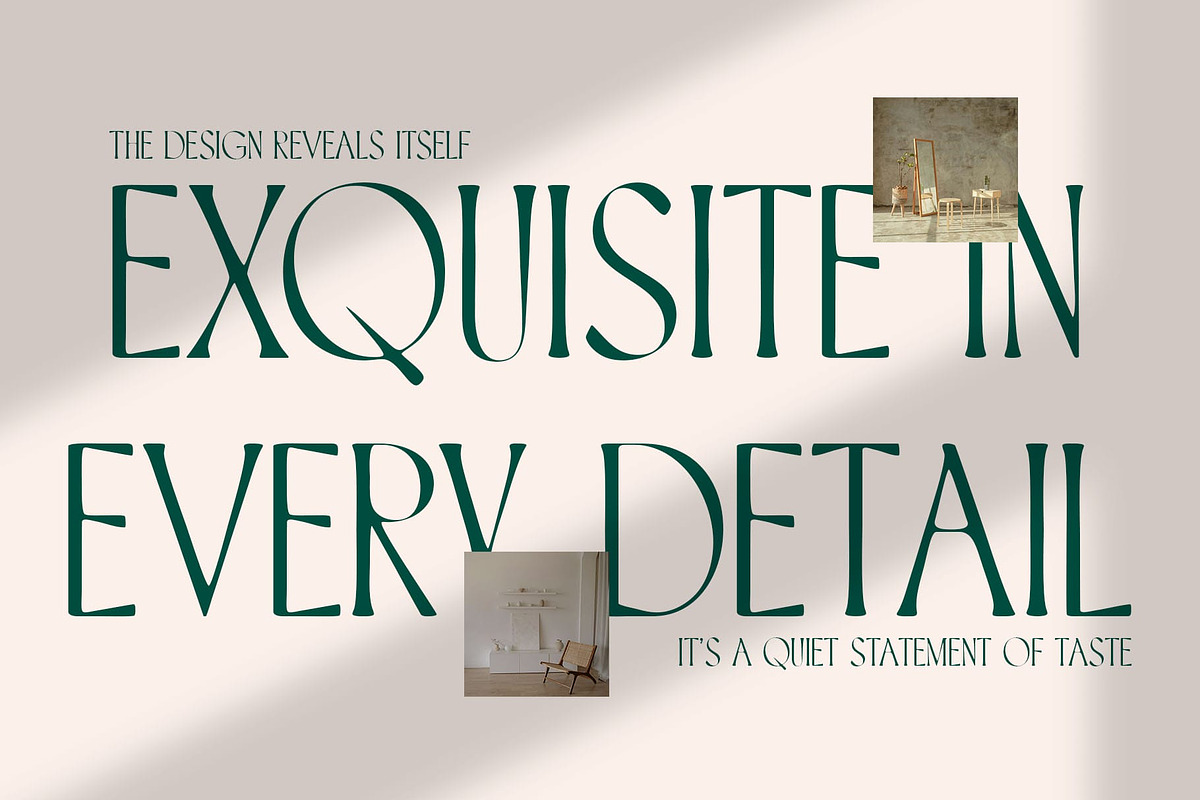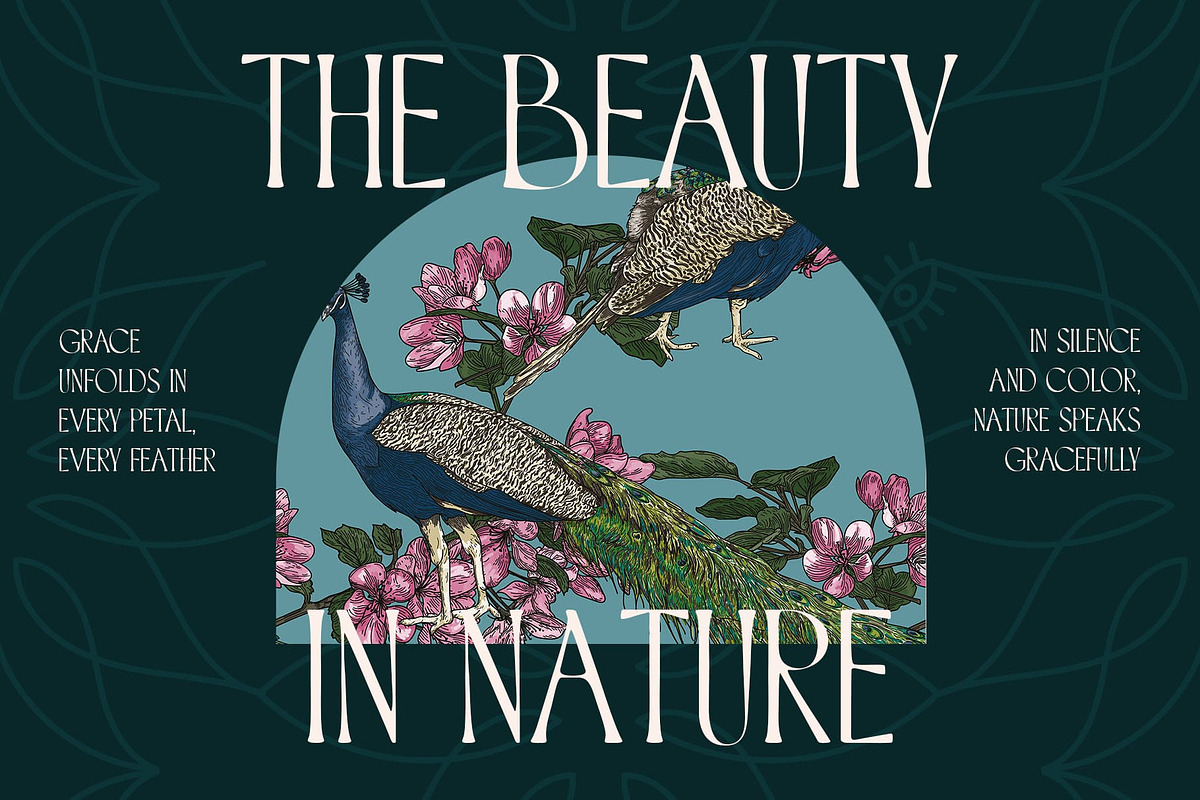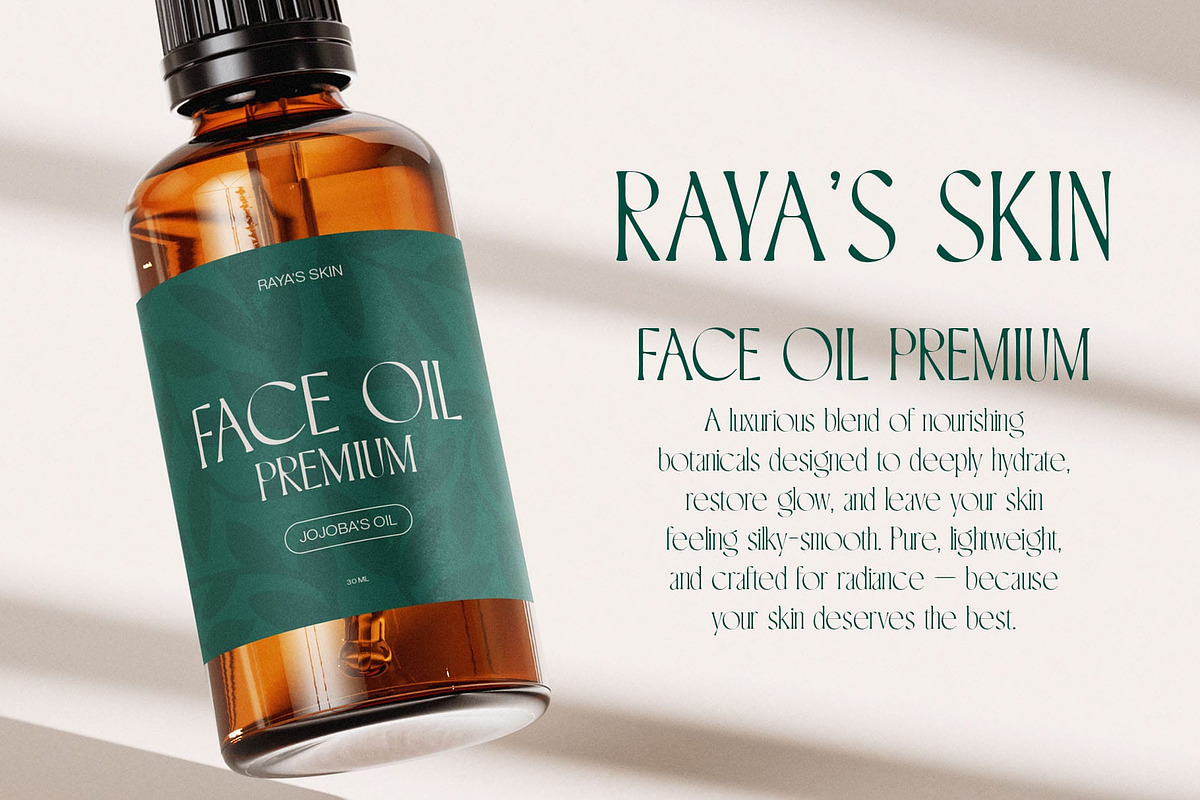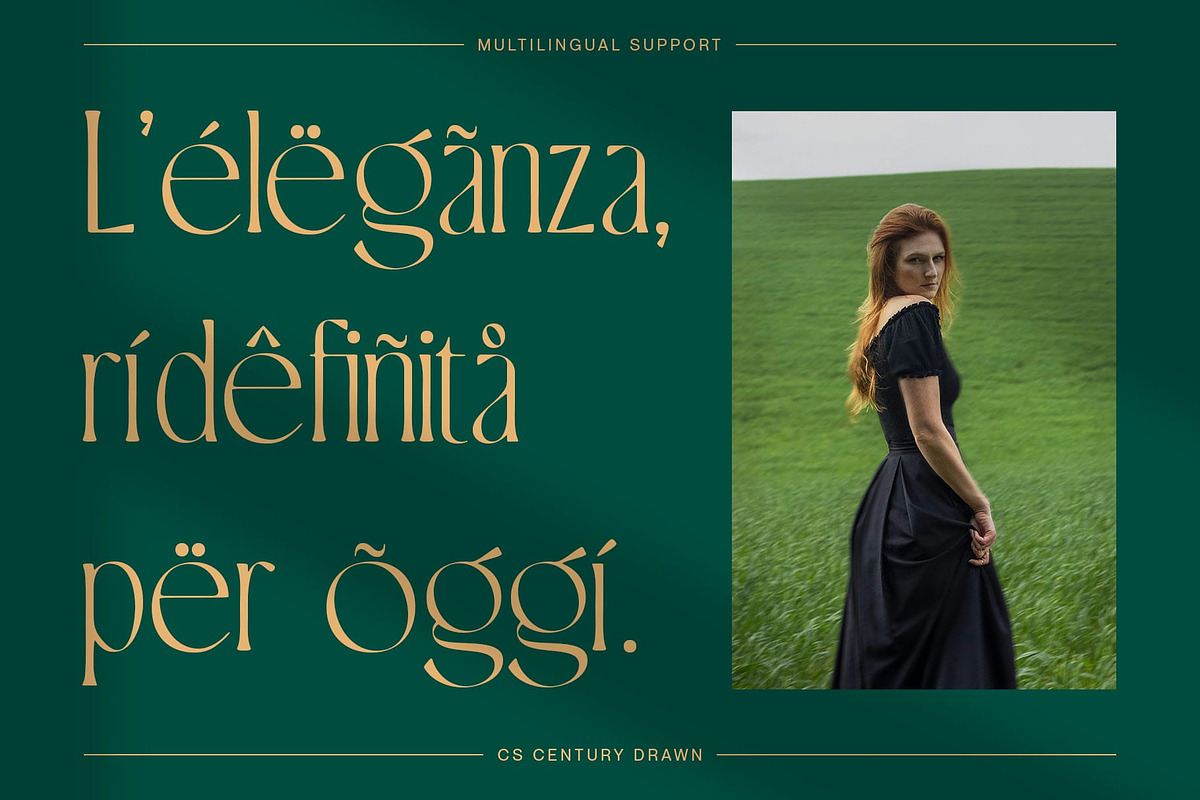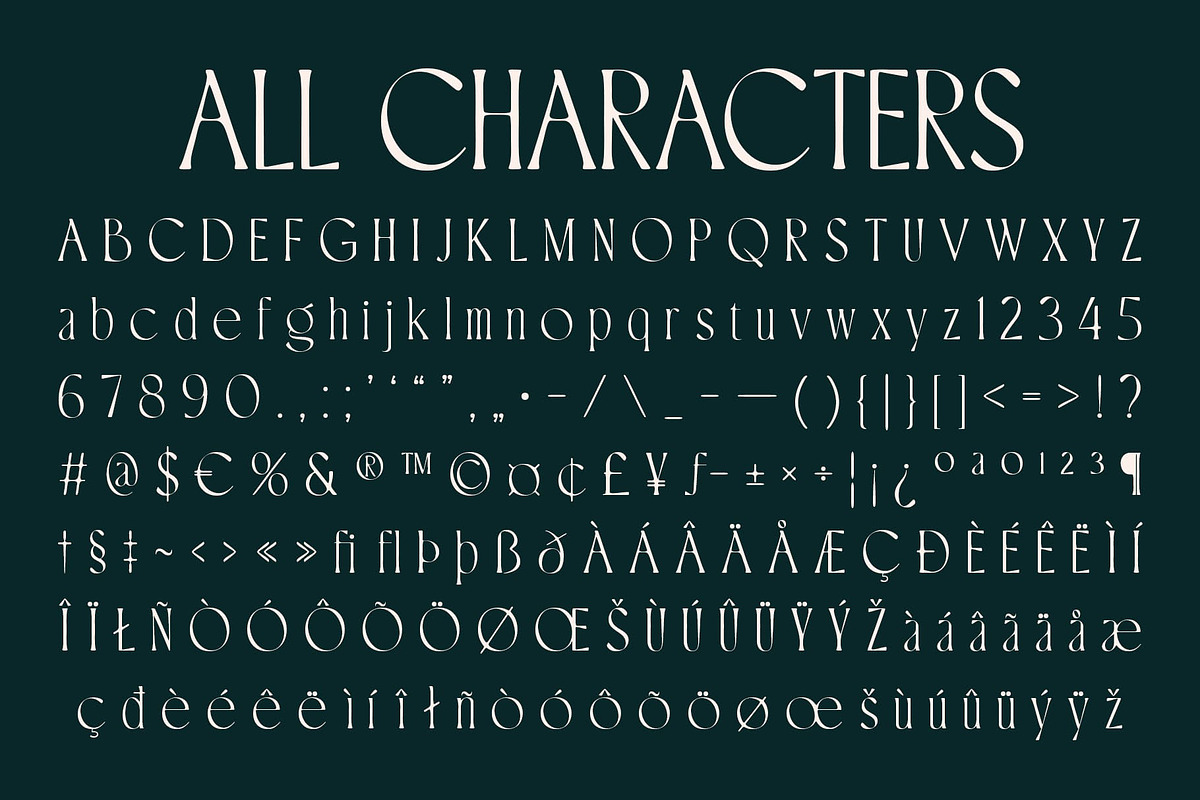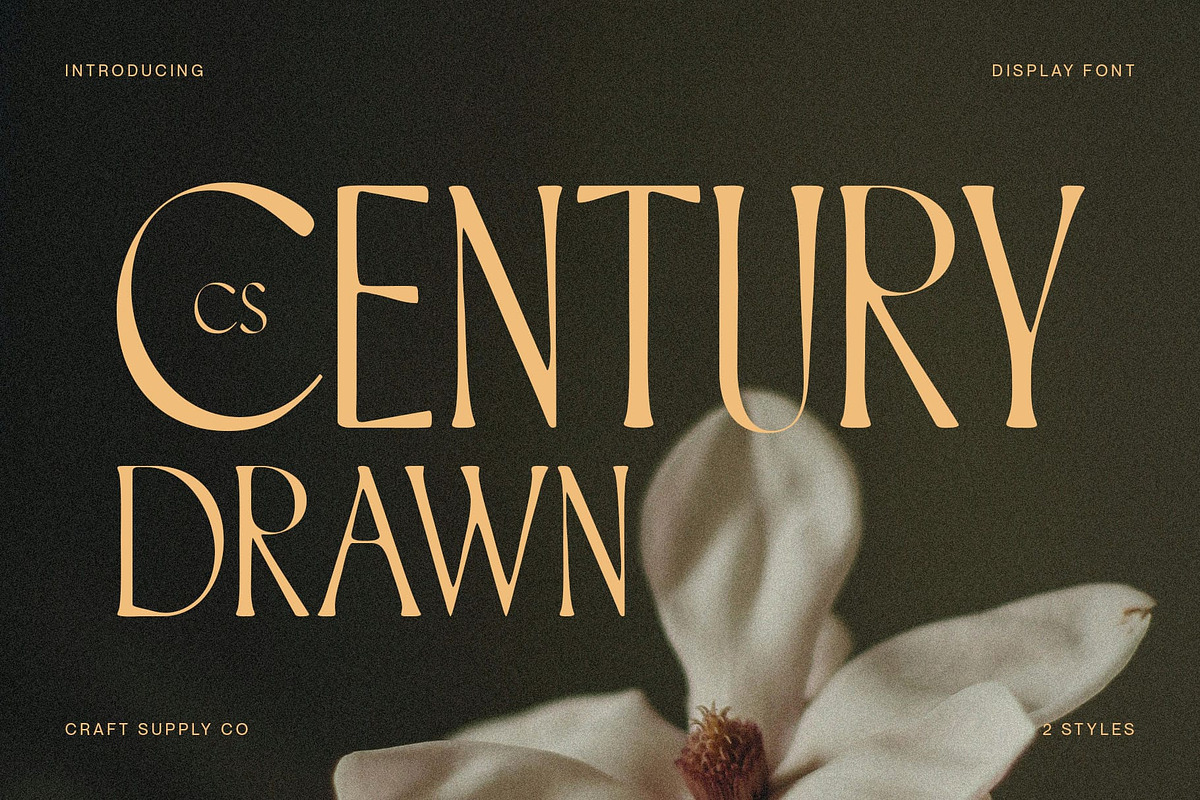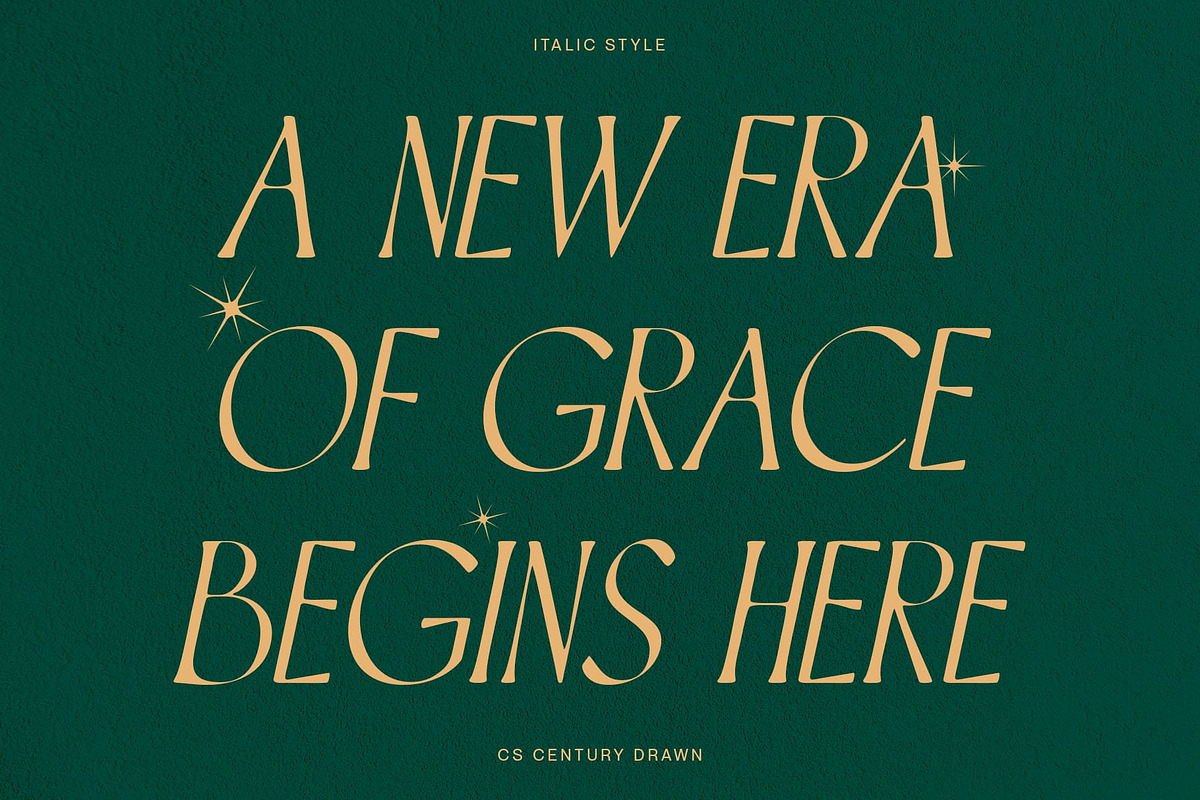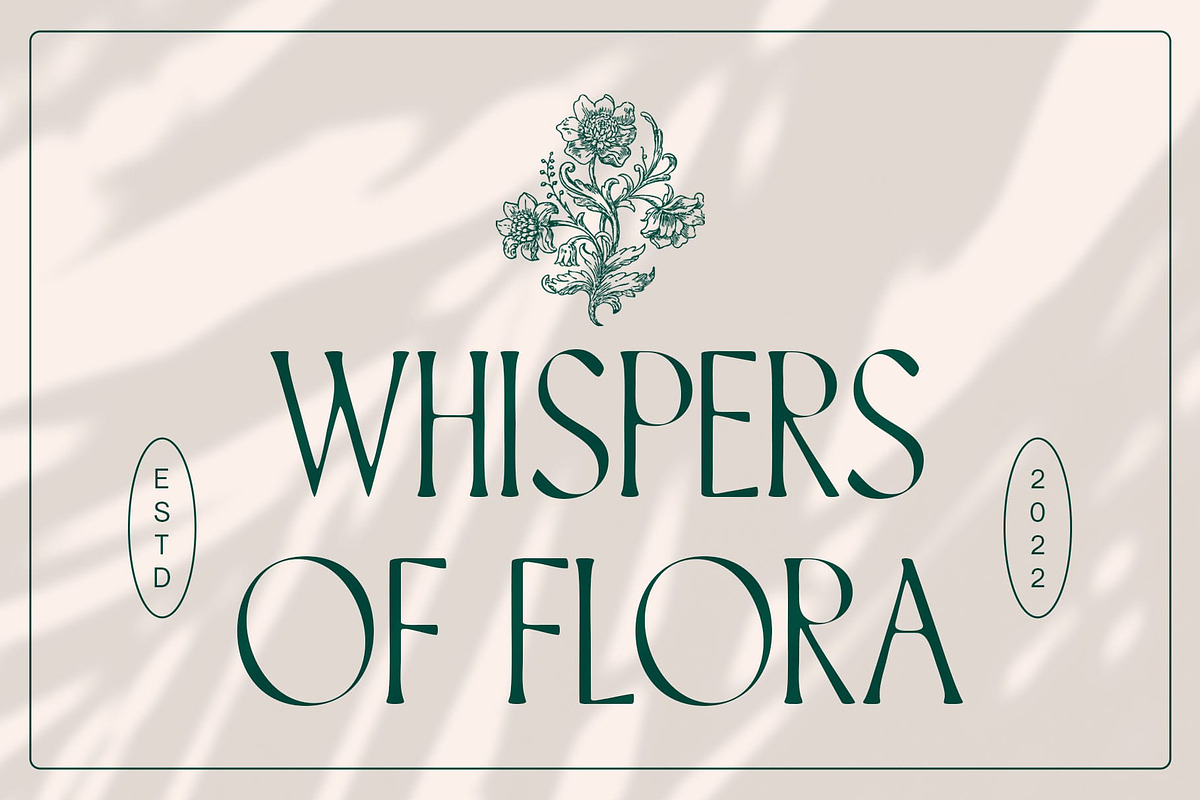
CS Century Drawn
CS Century Drawn: Elegance with a Handmade Touch
Timeless Elegance through Long Serifs CS Century Drawn is a modern serif font designed to convey a refined and timeless elegance. The long, delicate serifs bring a classic touch to the font, providing a sense of sophistication and luxury that harks back to traditional serif typefaces. These extended serifs add a formal, high-end feel that is perfect for creating an authoritative or prestigious impression in your design.
Minimalist Design for Modern Appeal While grounded in classic style, CS Century Drawn’s clean and minimalist design ensures it aligns with contemporary design trends. The simplicity of its lines and forms emphasizes clarity and efficiency, making it highly adaptable for a variety of design projects. This modern, streamlined aesthetic makes it suitable for settings where a polished, yet understated look is desired.
The Drawn Effect for Artistic Character This elegant font incorporates a hand-drawn effect that adds a creative and personal touch to the typeface. This slight texture and irregularity in the stroke width elevate the font beyond mere elegance, introducing warmth and uniqueness into its composition.
Perfect for Luxury Branding and Editorial Design Ideal for branding, high-end editorial, and visual design projects, this contemporary serif font combines luxury and creativity. Its elegant appeal makes it an excellent choice for upscale brands, fashion labels, or any design that requires a refined and professional image.